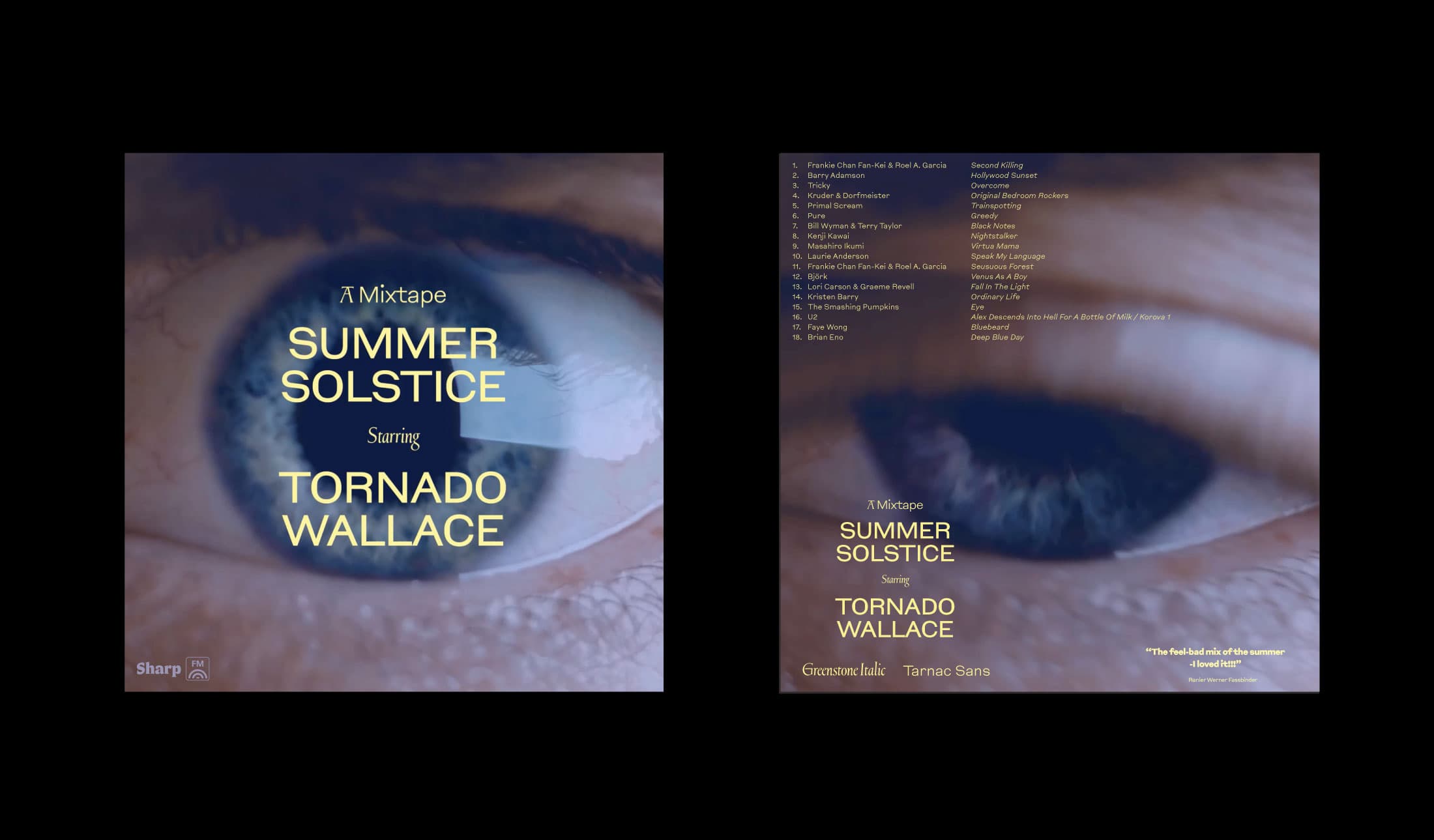
Tornado Wallace is a Berlin-based producer, DJ, and musician whose genre-spanning dance sets and studio releases are loosely defined by their generous ambience and cinematic immersiveness. Appropriately, every song here is pulled from a Letterboxd lover’s delight of international films made between the late 80s and the early 2000s. Sensual trip hop lamentations and shoegazing walls of guitar find common ground here, and when’s the last time you heard Faye Wong and U2 in the same mix?
Hot off a new release, we’re all lucky that he found the time to make us a mix. We were inspired to create a trailer and poster for the “soundtrack” of an imaginary film called Summer Solstice. The trailer and graphics star Connor Davenport's Greenstone Italic and Marc Rouault's Tarnac Sans. Set together, they're a handsome pair. The dusty pollen yellow of the typography laid over the eye-cum-sunset gives the trailer a filmic texture that recalls both moody film noir and Rohmerian summer desire.
“It contains only music used in films from 1987-2001," says Tornado Wallace, aka Lewie Day. "Chungking Express, Lost Highway, Opera, Perfect Blue, Trainspotting, Leon: The Professional, Fallen Angels, Cruel Intentions, Hackers, Johnny Mnemonic, Cool World, Strange Days, Ghost In The Shell. I think that's it. Perhaps there's some commonality there."
(Notably, Lewie forgot to mention what might be the deepest U2 cut of all time: "Alex Descends Into Hell for a Bottle of Milk" from 1991, which is the only released song from the Royal Shakespeare Company's production of A Clockwork Orange.)
"I wanted to conceptualise this mix in this way as movies have really been resonating with my songwriting at the moment, and I wanted to celebrate particular films that have been extra inspirational for that process.”
This mix pulls from nostalgia half a step ahead of the zeitgeist. Between the late 80s and early 2000s, the world went digital, and the aesthetics of music, film, and design went through particular evolutions that have become relevant again today. One need only look at the raver silhouettes in downtown New York and post-Pandemic Web 1.0 aesthetics online to see the convergence here. If time is a circle, this soundtrack navigates you pleasantly in an upward spiral.